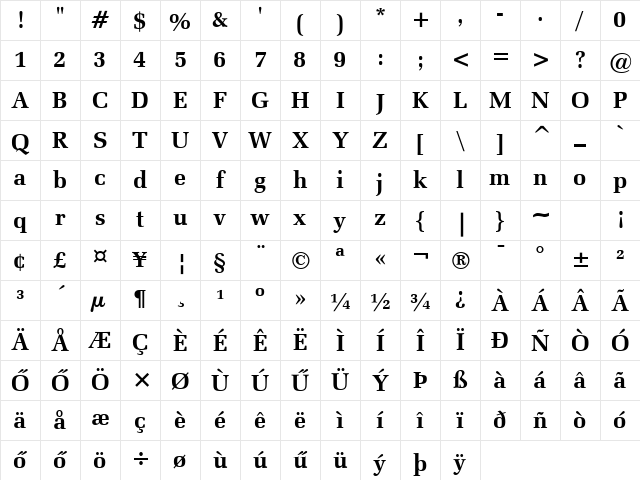
Zapf-Elliptical711 HU Bold
Design Context for Zapf-Elliptical711 HU
Zapf-Elliptical711 HU is a composed and adaptable typeface that performs quietly and consistently across a wide range of design contexts. Its bold stroke weight gives it real presence on the page.